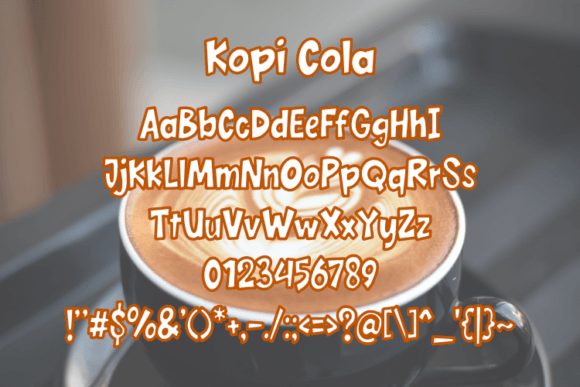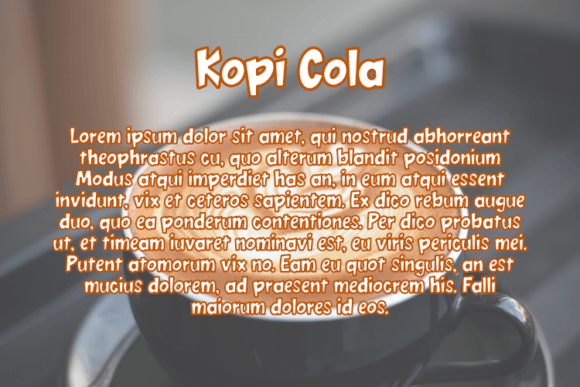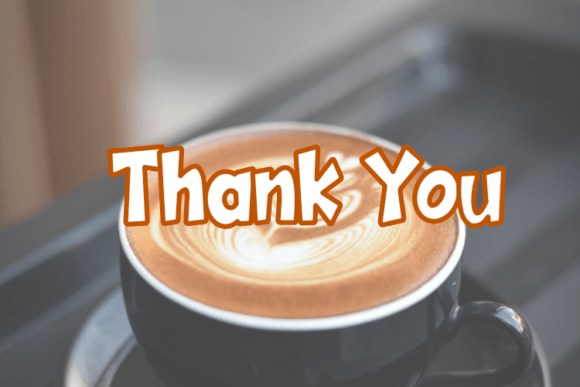
Discovering the Perfect Typography: Kopi Cola Font
Have you ever been stuck in the middle of a creative project, searching for the perfect typography to elevate your design? It’s that moment when you realize the difference between a good design and a great one. The typeface can make or break the aesthetic of your project, and that’s where the Kopi Cola Font comes in. This versatile and high-quality typography is a game-changer for designers looking to add a touch of effortless chic to their work.
Kopi Cola Font
- High-quality design for creative projects, perfect for those looking for a unique and eye-catching font.
- Includes a range of characters, including uppercase and lowercase letters, numbers, and special characters.
- Perfect for use in digital design, including logos, branding, and marketing materials.
- Designed to be highly legible, even at small font sizes, making it ideal for use in a variety of creative projects.
Honest Review: Kopi Cola Font
I recently stumbled upon the Kopi Cola Font, and I must say it’s an intriguing addition to any designer’s toolbox. As a creative project, this font is perfect for those looking to add a touch of nostalgia to their designs.
One of the standout features of the Kopi Cola Font is its high-quality design. The font is crisp, clear, and easy to read, making it perfect for body text or headings in a design project.
- Unique and creative design, perfect for standing out in a crowded design landscape
- Limited character set, which may not be suitable for complex design projects
- Not suitable for use as a primary font, as it may not be legible in certain contexts
Overall, I think the Kopi Cola Font is a great addition to any designer’s library. While it may have some limitations, its unique design and high-quality construction make it a valuable resource for any creative project.
How to Use Kopi Cola Font
The Kopi Cola Font is a high-quality design resource perfect for creative projects that require a unique and eye-catching touch. With its transparent background, this font can be easily incorporated into various designs without any visual distractions.
Tips for Getting the Most Out of Kopi Cola Font
– Experiment with different font sizes and colors to create a unique look
– Use the Kopi Cola Font in combination with other design elements to create a visually appealing design
– Consider using the font in a creative project, such as a logo or branding design
– Logo design
– Branding design
– Creative projects
– Social media graphics
– Marketing materials